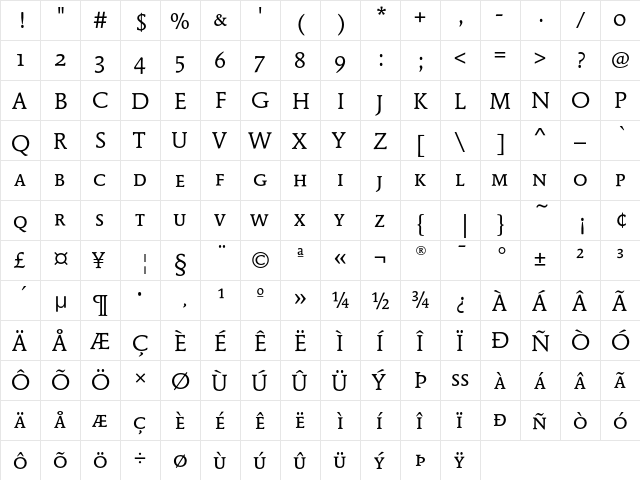
MendozaEF BookSC
Design Context for MendozaEF Typeface
MendozaEF is a composed and adaptable typeface that performs quietly and consistently across a wide range of design contexts.